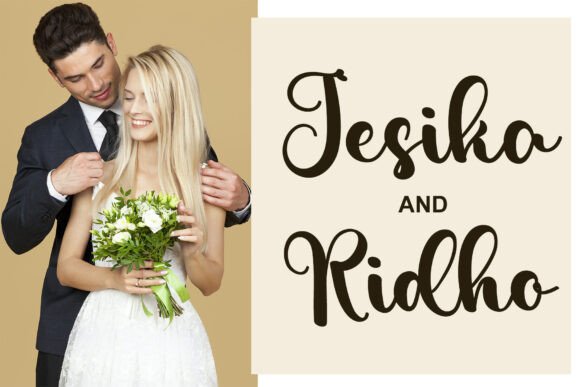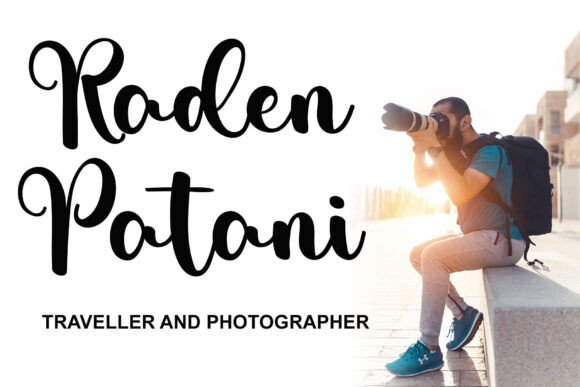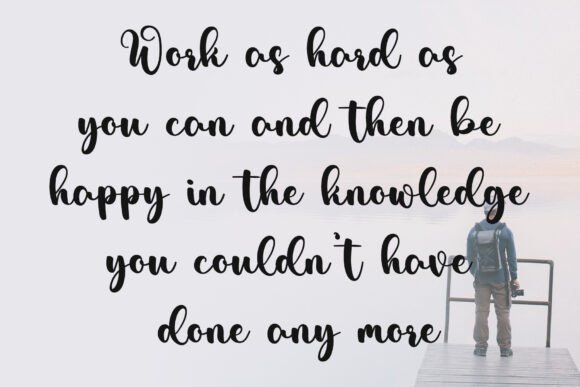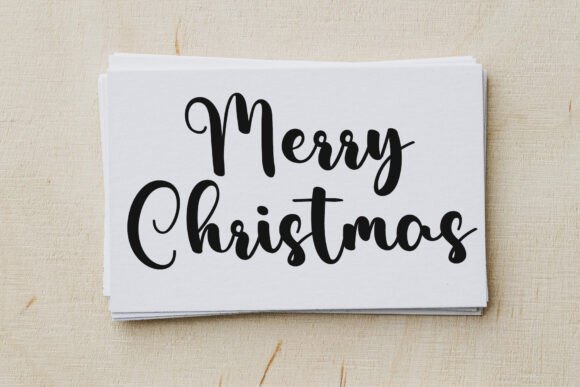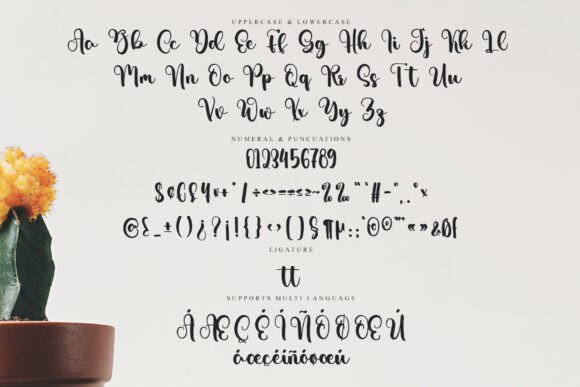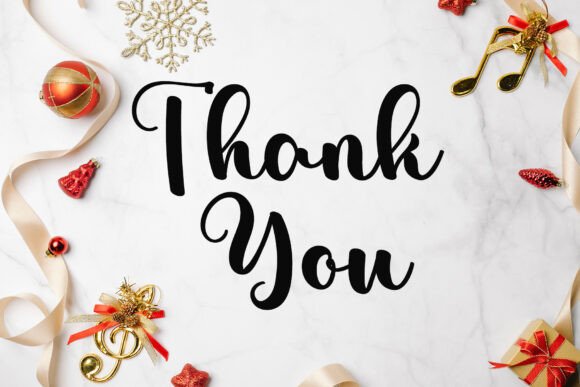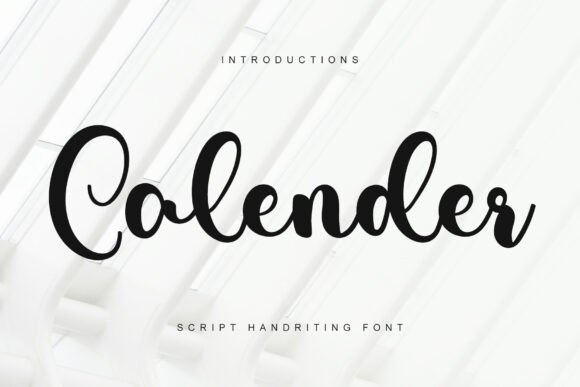
Introducing Calender Font: Elevate Your Designs with Elegance
Are you a designer, crafter, or DIY enthusiast looking for a font that can add a touch of sophistication to your creative projects? Look no further than Calender Font, a beautiful handwritten script font designed to bring elegance and style to your designs. In this article, we’ll explore the features and benefits of Calender Font, and how it can help you take your designs to the next level.
What is Calender Font?
Calender Font is a carefully crafted handwritten font that is designed to give your designs a touch of elegance and refinement. With its flowing script and delicate lines, this font is perfect for a wide range of creative projects, from social media graphics and Instagram posts to DIY crafts and calligraphy projects.
Key Features of Calender Font
- Magical Handwritten Style: Calender Font features a beautiful, handwritten script that is both elegant and refined.
- Versatile: This font is perfect for a wide range of creative projects, from social media graphics and Instagram posts to DIY crafts and calligraphy projects.
- Elegant and Refined: Calender Font is designed to add a touch of sophistication and elegance to your designs.
Benefits of Using Calender Font
So why choose Calender Font for your next creative project? Here are just a few benefits of using this beautiful font:
- Add a Touch of Elegance: Calender Font is designed to add a touch of sophistication and elegance to your designs, making it perfect for projects where you want to make a lasting impression.
- Stand Out from the Crowd: With its unique and refined script, Calender Font is sure to help your designs stand out from the crowd.
- Perfect for DIY Projects: This font is perfect for DIY enthusiasts and crafters who want to add a personal touch to their projects.
- Great for Social Media: Calender Font is also perfect for social media graphics and Instagram posts, where you want to make a lasting impression.
Need some inspiration for your next creative project? Here are a few tips and ideas to get you started:
- Use Calender Font for Quotes and Sayings: Use Calender Font to create beautiful quote graphics and inspirational sayings.
- Create a DIY Journal: Use Calender Font to create a beautiful DIY journal or planner.
- Make a Beautiful Instagram Post: Use Calender Font to create a stunning Instagram post that will grab attention.